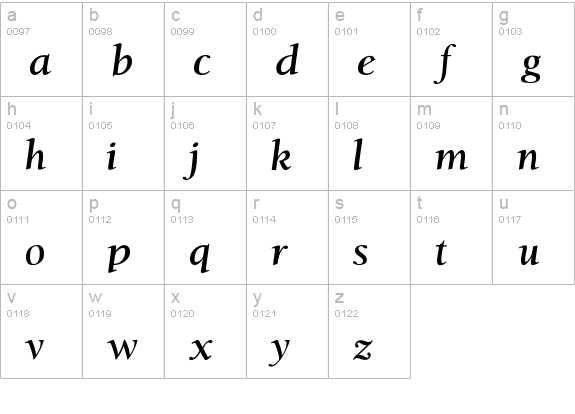
JacksonvilleOldStyle.fog Font Details
Introducing JacksonvilleOldStyle.fog, a stunningly elegant font that beautifully captures the essence of the old world charm with a modern twist. This timeless typeface exudes a sense of nostalgia and sophistication, making it the perfect choice for any project that requires a touch of vintage elegance. The JacksonvilleOldStyle.fog font boasts intricate details and carefully crafted curves, creating a truly unique and captivating visual experience. Its classic yet contemporary design makes it versatile and suitable for a wide range of applications, from branding and logo design to editorial layouts and packaging. But what truly sets JacksonvilleOldStyle.fog apart is its availability as a free download on FontsMarket.com. Yes, you read that right – this remarkable font can be yours at absolutely no cost! We believe in the power of creativity, and by offering JacksonvilleOldStyle.fog for free, we hope to inspire designers, artists, and enthusiasts alike to explore and experiment with this extraordinary typeface. Whether you're a professional graphic designer seeking a fresh addition to your font library or an aspiring creative looking to enhance your personal projects, JacksonvilleOldStyle.fog is the answer. Its seamless legibility and timeless appeal will elevate your designs from ordinary to extraordinary, making a lasting impression on your audience. So don't miss out on this incredible opportunity to enhance your creative endeavors with JacksonvilleOldStyle.fog. Download it for free at FontsMarket.com and unlock the potential of this exceptional font. Let your imagination run wild and bring your visions to life with the elegance and charm of JacksonvilleOldStyle.fog.